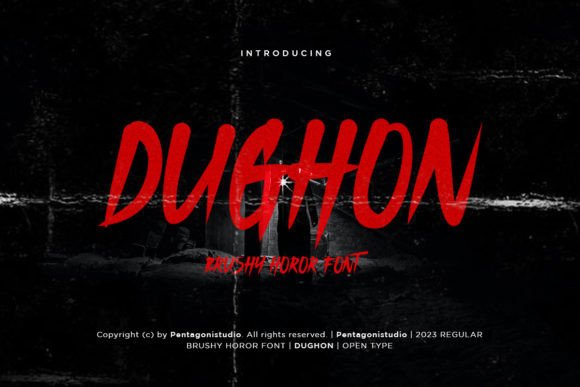
Introducing Dughon Font, the ultimate Halloween-inspired font that will unleash your creativity and leave a lasting impression on your audience. Immerse yourself in the world of horror and trash style, where this font reigns supreme.
Dughon Font is a mesmerizing script font, meticulously crafted by the talented hands of Pentagonistudio, renowned for their exceptional artistry. This font is not just a collection of letters; it's an invitation to explore the dark side of your imagination, to embrace the thrill of the unknown.
With its eerie and captivating design, Dughon Font possesses the power to transform your designs into bone-chilling masterpieces. Each stroke, each curve, and each letter is meticulously crafted to evoke a sense of mystery, intrigue, and otherworldly charm. Whether you're a graphic designer, a horror enthusiast, or simply someone who appreciates unique and captivating fonts, Dughon Font is your perfect companion.
Step into the realm of Halloween with Dughon Font, and experience the thrill of creating designs that will haunt your audience's dreams. Let your imagination run wild as you craft spine-tingling invitations, chilling postcards, haunting posters, and bone-chilling headings that will leave an unforgettable mark. The possibilities are endless, and the only limit is your imagination.
Don't settle for ordinary fonts; embrace the darkness and let Dughon Font ignite your creativity. Unleash the horror, embrace the trash style, and craft designs that will make your audience tremble with delight. Join the legion of satisfied users who have discovered the power of Dughon Font and transformed their designs into terrifying works of art.